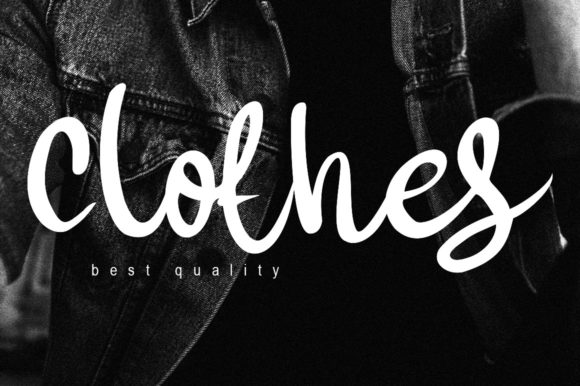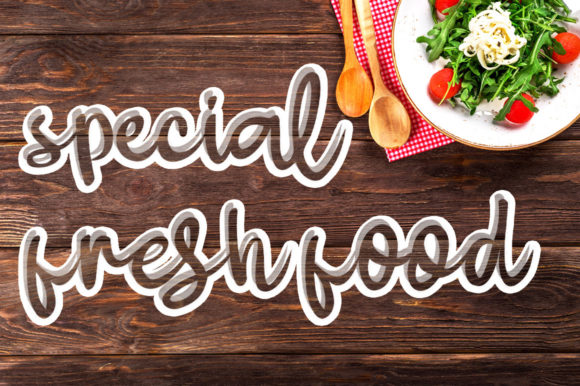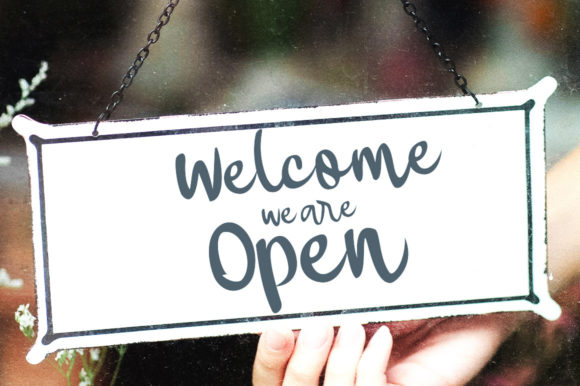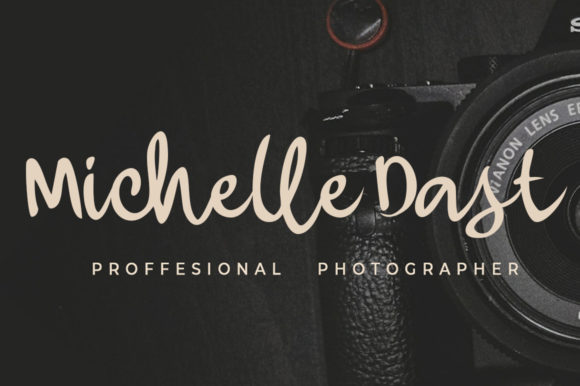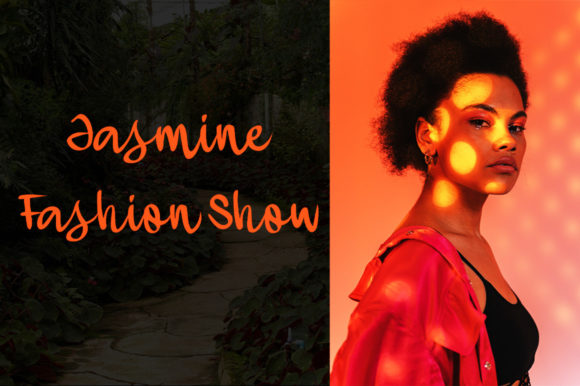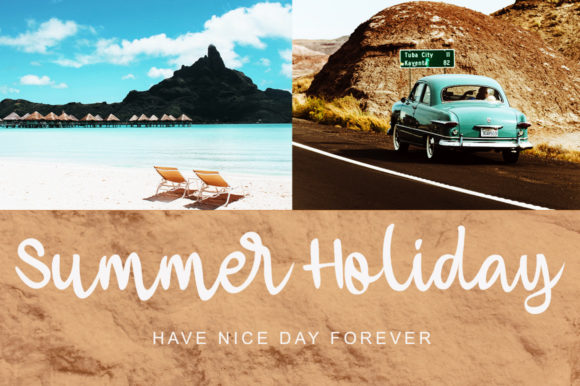
Introduction to Kamandaka Font
Have you ever sat at your desk, surrounded by scraps of paper and half-finished designs, feeling like the perfect font is just out of reach? I know I have. That’s why I’m excited to share with you the Kamandaka Font, a stunning and elegant design resource that’s sure to elevate your creative project.
With its charming and refined look, the Kamandaka Font is perfect for adding a handwritten touch to wedding invitations, thank you cards, quotes, and more. And with its PUA encoding, accessing all of the glyphs and swashes is a breeze, allowing you to create high-quality designs with ease.
Key Features of Kamandaka Font
- Unique, elegant script font design, ideal for creative projects and design resources.
- Transparent background, allowing for seamless integration with any design element or background.
- Designed to be highly legible, making it perfect for a wide range of applications, from invitations to digital displays.
Honest Review: Kamandaka Font
As a designer, I’ve had the pleasure of working with a variety of fonts, and I’m excited to share my thoughts on the Kamandaka Font. This font has quickly become a go-to resource for me, especially when I need something unique and eye-catching for my creative projects.
- ✨ Unique aesthetic: The Kamandaka Font has a distinctive look that sets it apart from other fonts. Its bold, modern design makes it perfect for headings and titles.
- ✨ High quality: The font is crisp and clear, making it ideal for digital use. I’ve used it for web design, social media graphics, and even print materials.
⚠️ Limitations:
- ⚠️ Limited language support: While the font is perfect for English, it may not be suitable for languages that require more complex characters.
- ⚠️ No transparent background option: If you need to use the font on a transparent background, you may need to adjust the settings manually.
Overall, I’m impressed with the Kamandaka Font. Its unique design and high quality make it a valuable resource for any designer working on a creative project. Whether you’re a seasoned pro or just starting out, I highly recommend giving it a try.
Kamandaka Font is a high-quality, free download design resource ideal for creative projects. Its unique style and versatility make it a popular choice among designers.
Tips for Getting the Most Out of Kamandaka Font
Use Kamandaka Font to add a unique touch to your designs.
Combine it with other design elements for a cohesive look.
Experiment with different font sizes and colors to create visual interest.
Kamandaka Font is ideal for:
Brand logos and identity designs.
Marketing materials such as brochures and flyers.
Web design and development projects.